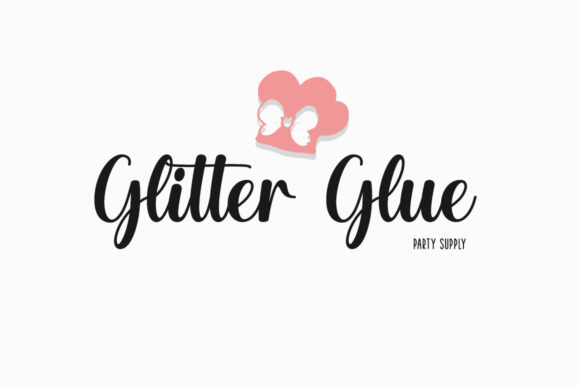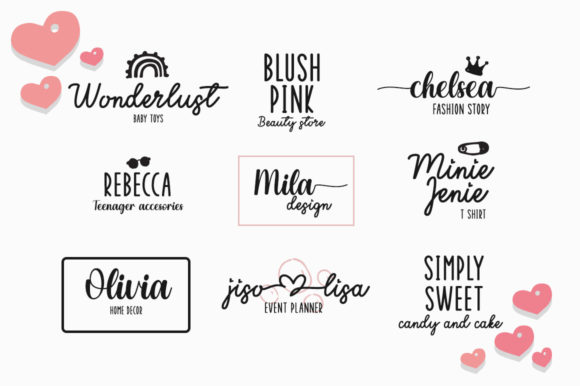
Enjoy the Little Things Font
db-ku.com - Script & Handwritten -- Enjoy the Little Things is a cute and playful duo font (sans serif and script). Incredibly versatile, this font fits a wide pool of designs, elevating them to the highest levels. Enjoy the Little Things is PUA encoded which means you can access all of the glyphs and swashes with ease!